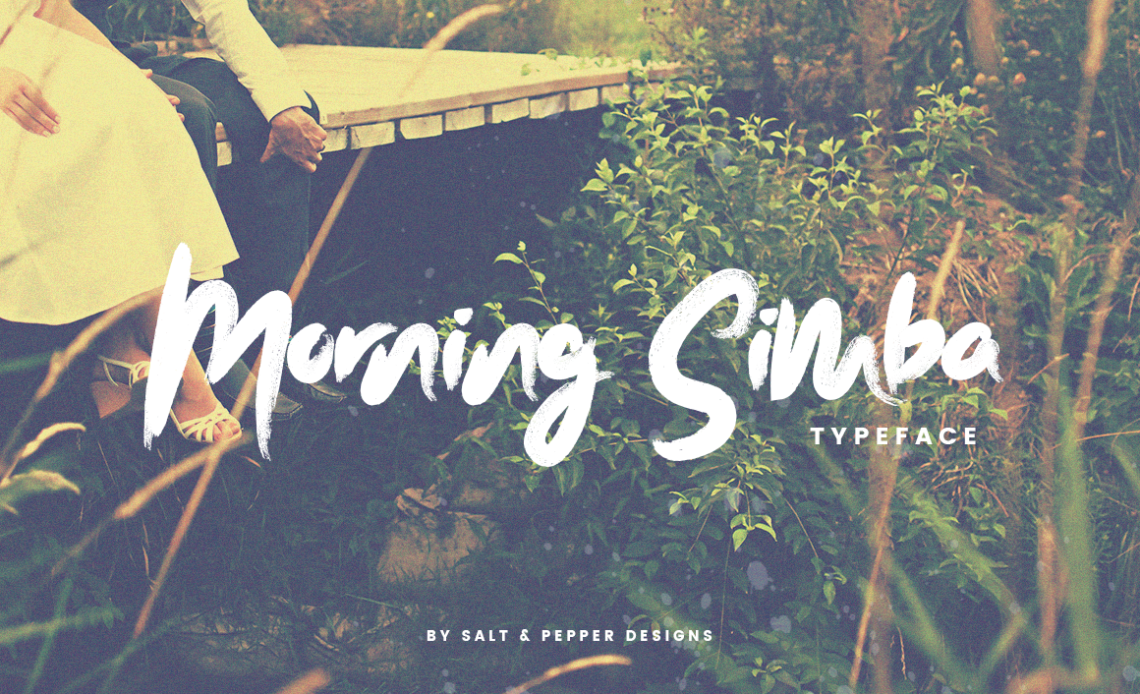
Behold the audacious 'Morning Simba Script Font,' a brush font that exudes unbridled attitude and energy, ready to infuse your designs with a captivating kick. Salt and Pepper Fonts, the creative minds behind this masterpiece, have meticulously crafted each stroke and curve to deliver an enthralling visual experience.
Unleash your creativity and let your designs roar with confidence. The 'Morning Simba Script Font' is a symphony of boldness and playfulness, effortlessly transforming your projects into captivating masterpieces. Its distinct character adds a touch of individuality that sets your work apart, leaving a lasting impression on your audience.
Picture the 'Morning Simba Script Font' gracing your website's header, commanding attention with its vibrant strokes. Envision it flowing through your social media posts, captivating your followers with its dynamic presence. Let its energy ignite your marketing materials, leaving a trail of intrigue and desire wherever it goes.
The 'Morning Simba Script Font' is not just another font; it's an experience, an expression of your unique style and vision. It's the perfect companion for designers, bloggers, and creatives who dare to stand out from the crowd. Embrace the wild, untamed spirit of 'Morning Simba' and watch your designs come alive with an electrifying charm.